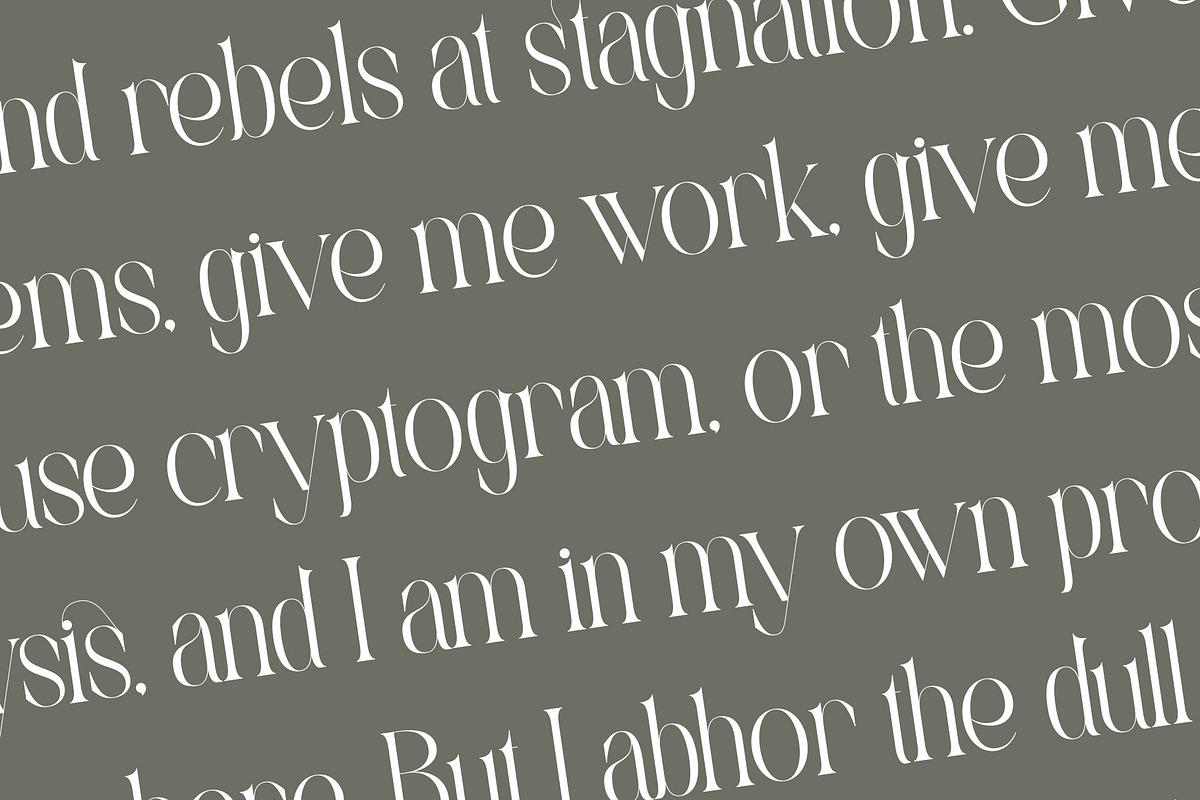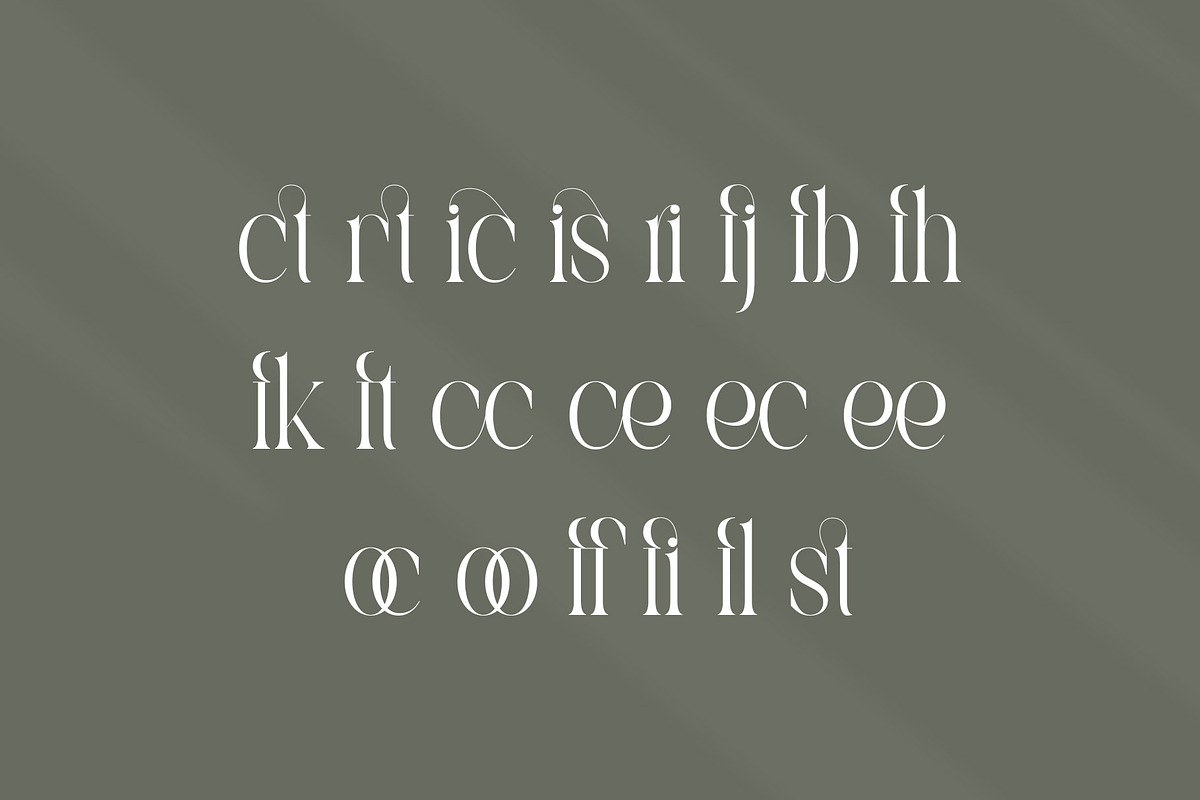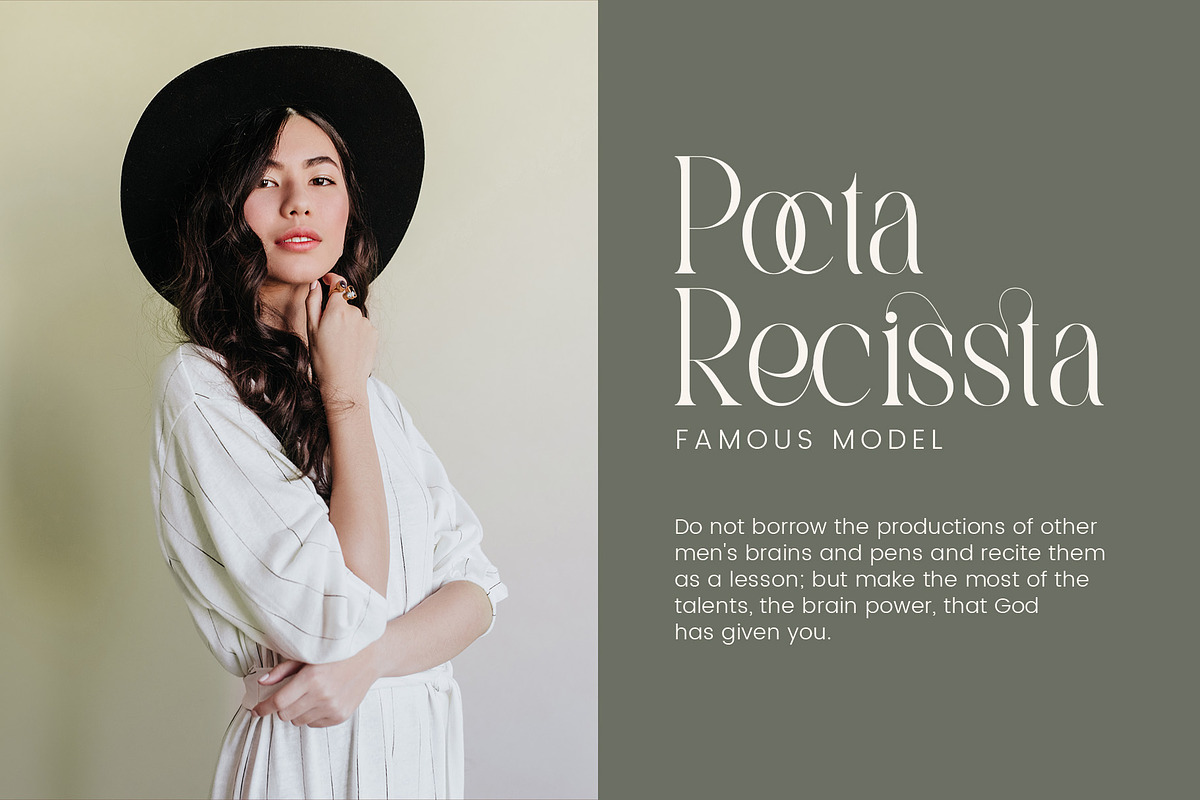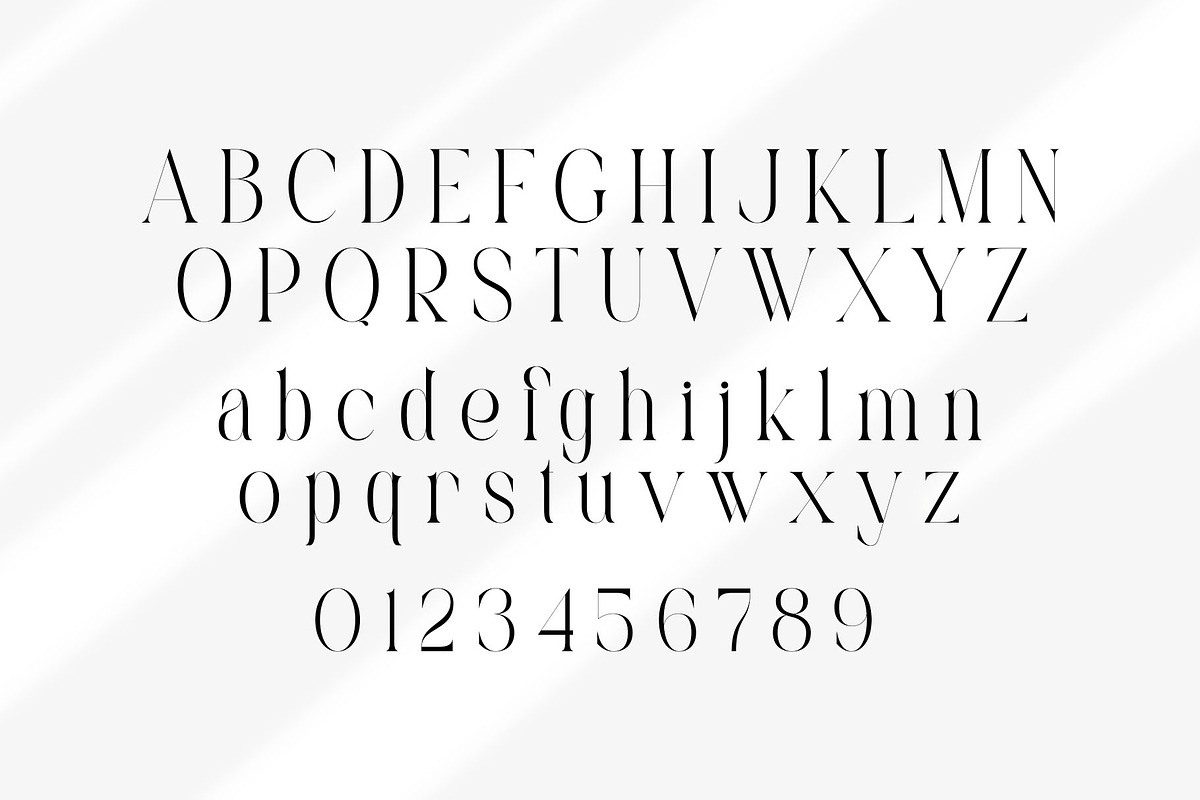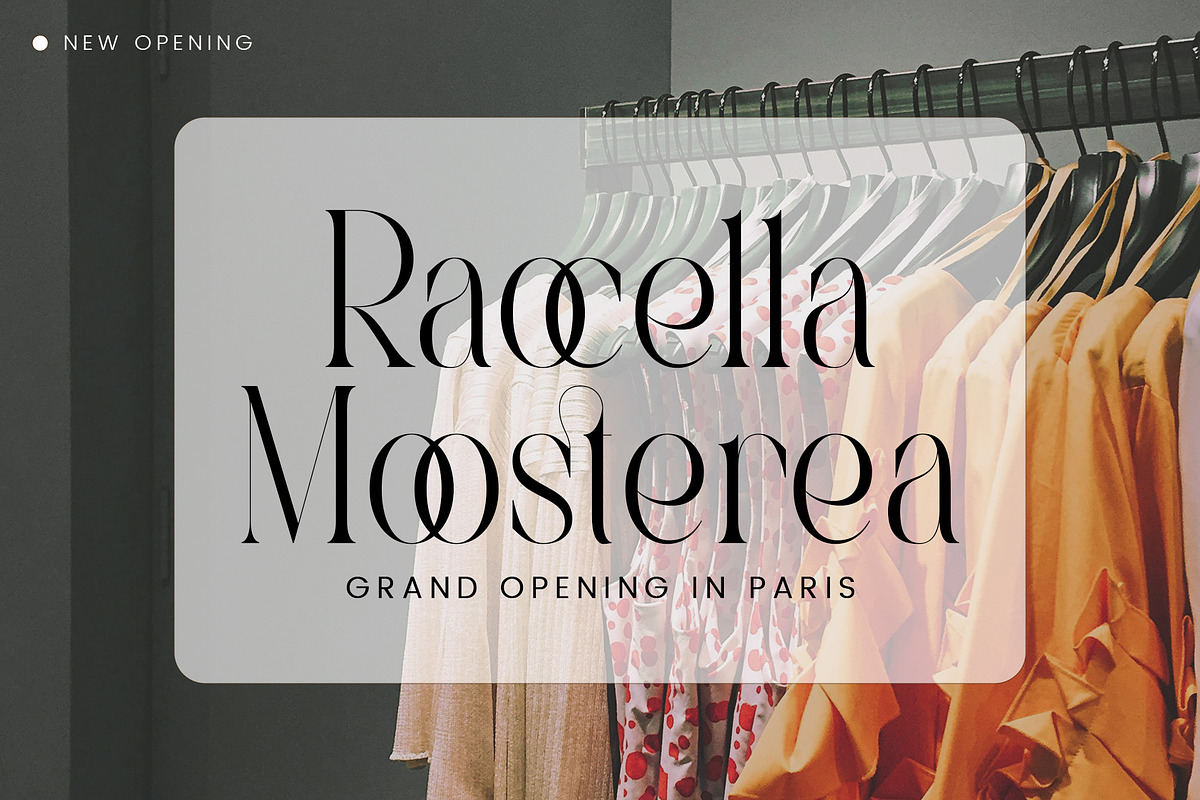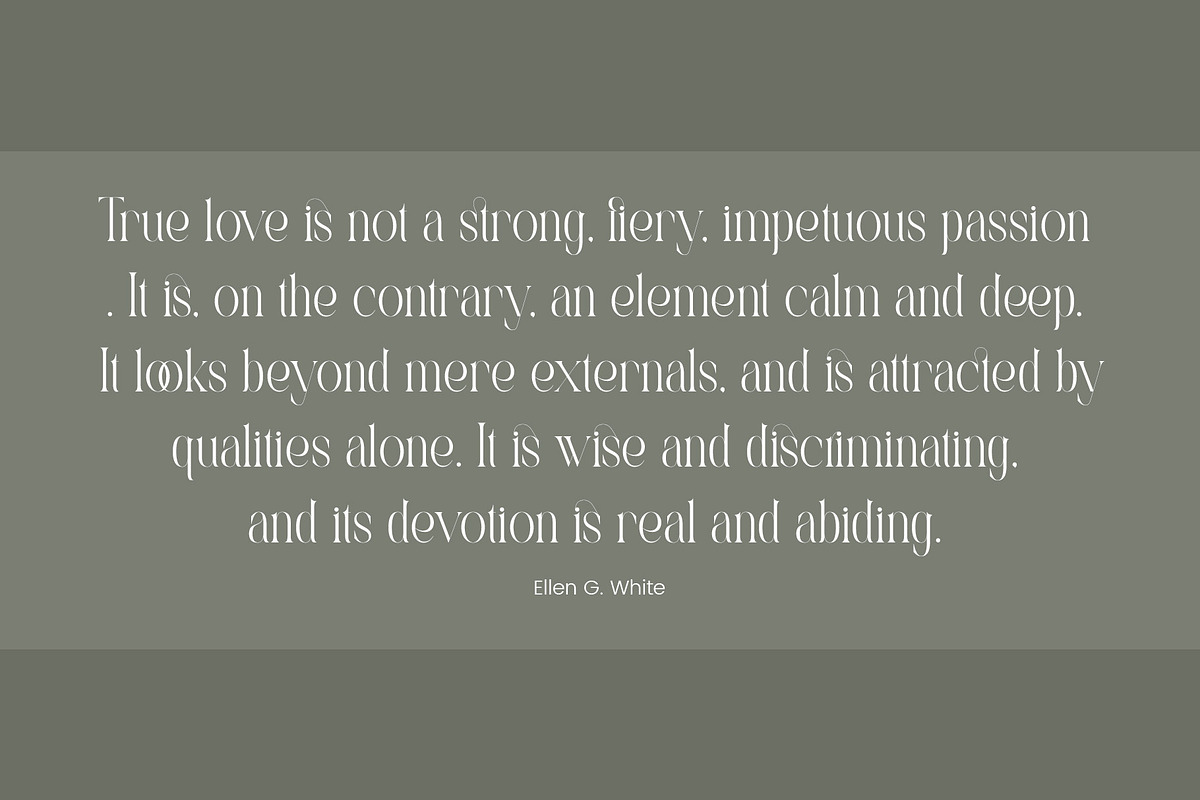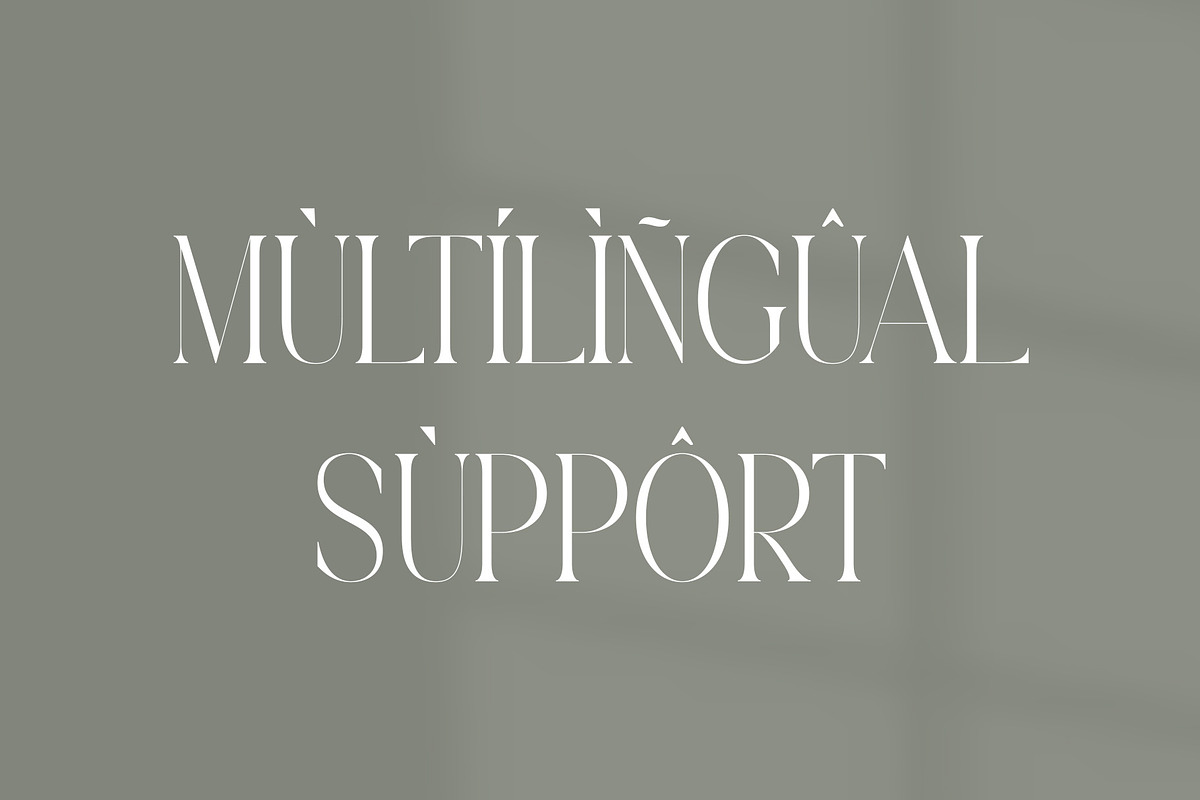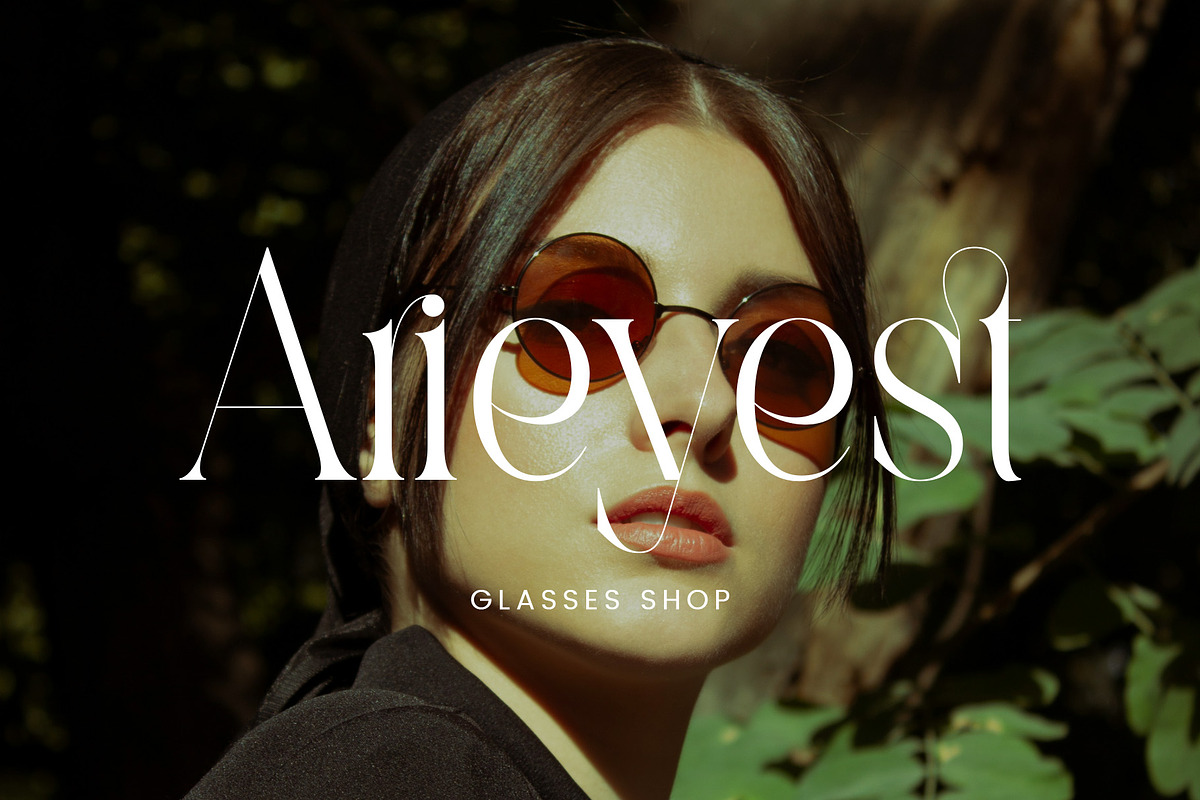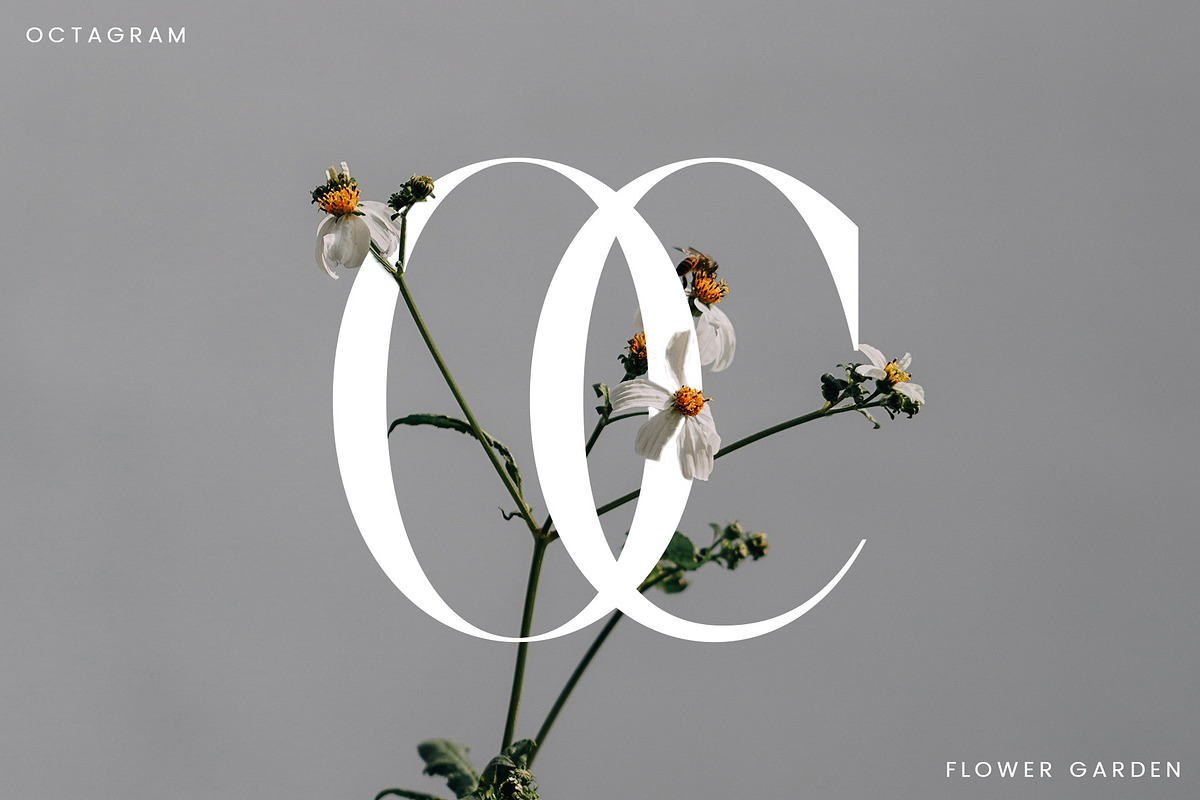
Castica - Modern Serif Font
Castica Stylish Ligature Typeface, inspired by the famous minimalist logo perfect for the purposes of designing templates, brochures, videos, advertising branding, logos and more.
\- Ligatures
\- International Accent